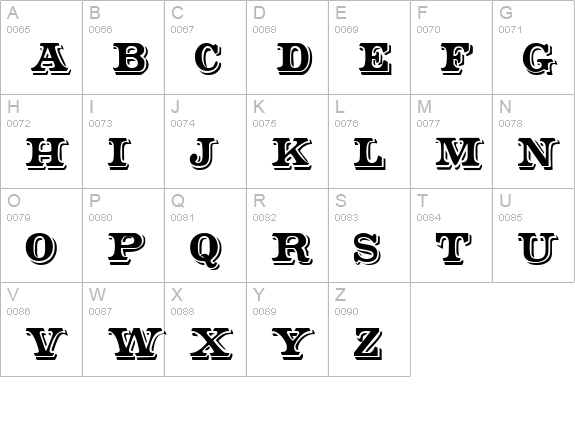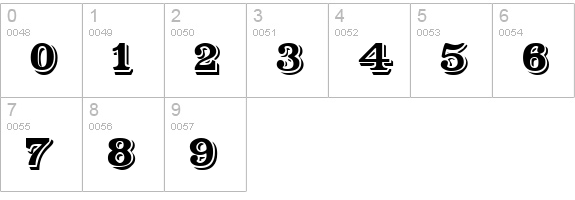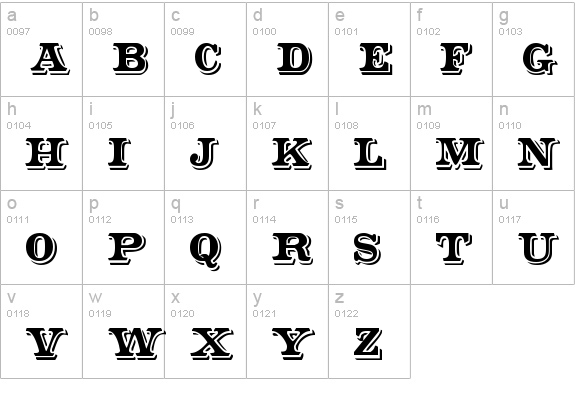
Shadowed Serif Font Details
Shadowed Serif is a striking and elegant font that effortlessly combines modern design with classic elements. With its clean lines and sophisticated presence, this font is perfect for creating professional and stylish designs. The unique shadowed effect adds depth and dimension, making each letter stand out with a captivating allure. This font is freely available for download at FontsMarket.com, ensuring that you can easily access this stunning typeface at no cost. Whether you are a professional designer looking to elevate your projects or a casual user in need of a font that exudes sophistication, Shadowed Serif is the perfect choice. Featuring a comprehensive character set, including uppercase and lowercase letters, numbers, punctuation, and special characters, this font offers endless possibilities for creativity. Its versatility allows it to be used in a variety of design projects, such as logos, branding, invitations, advertisements, and more. The clean and sharp lines of Shadowed Serif make it highly legible and readable, ensuring that your message is conveyed with clarity and impact. The shadow effect adds a touch of drama and elegance, making your designs visually stunning and memorable. With its timeless appeal and attention to detail, Shadowed Serif is sure to make a lasting impression. Download this font for free at FontsMarket.com and unlock the full potential of your designs.